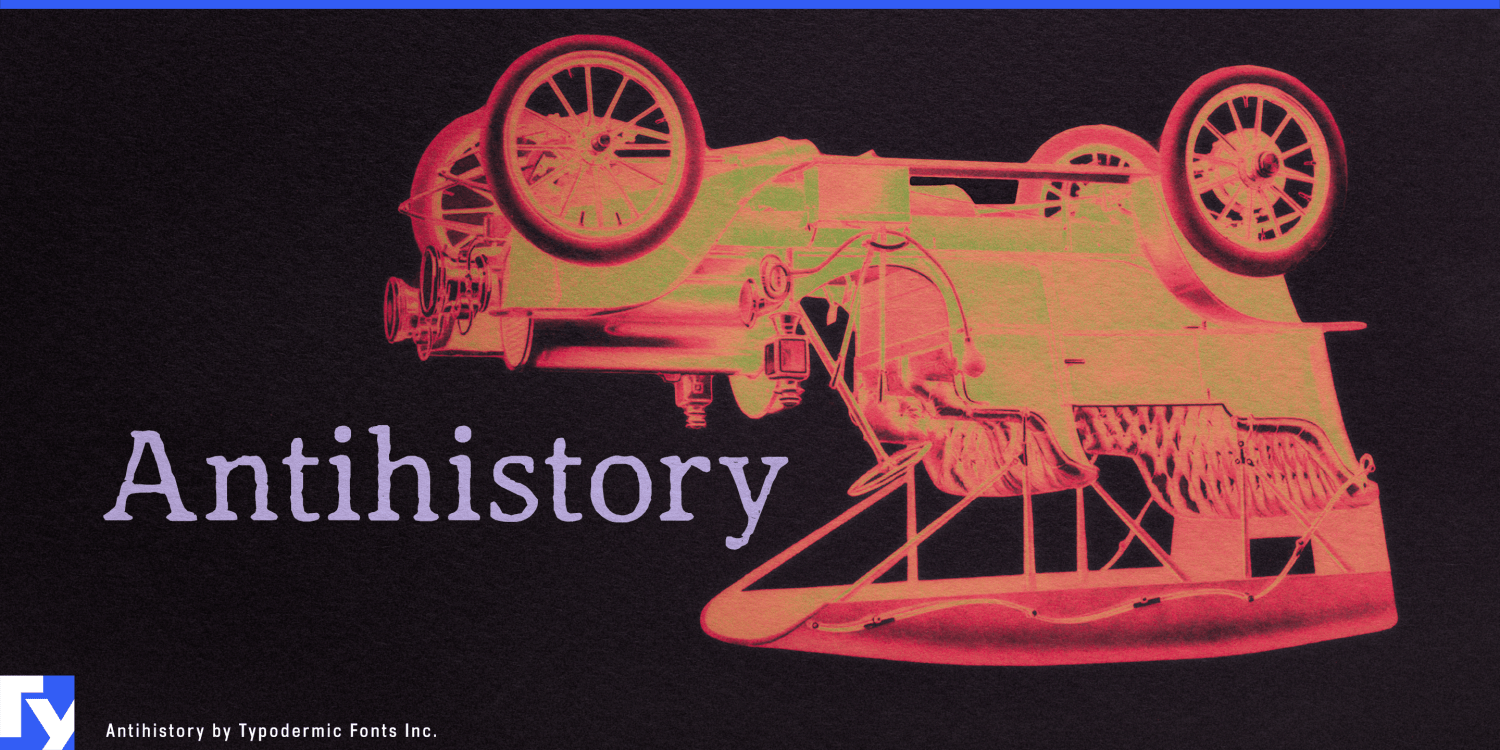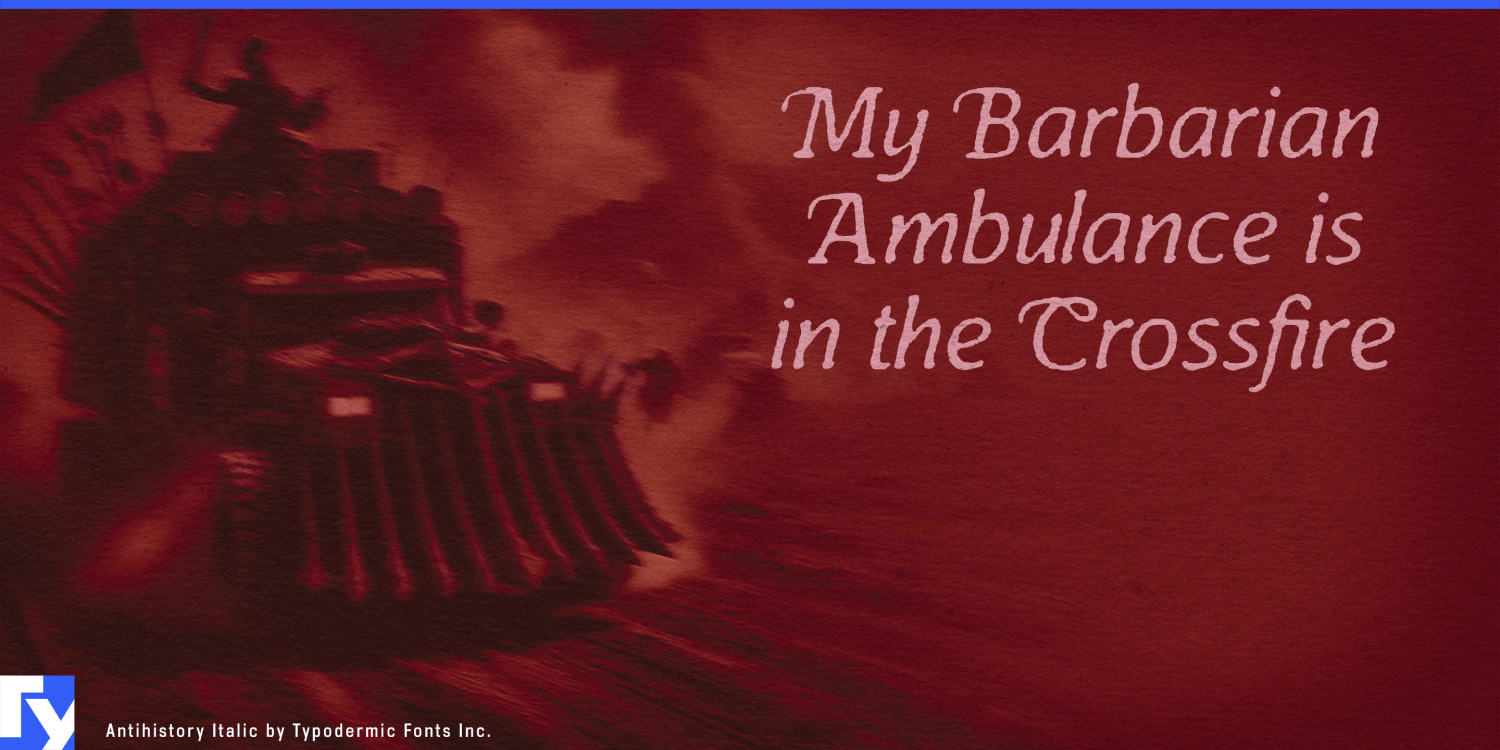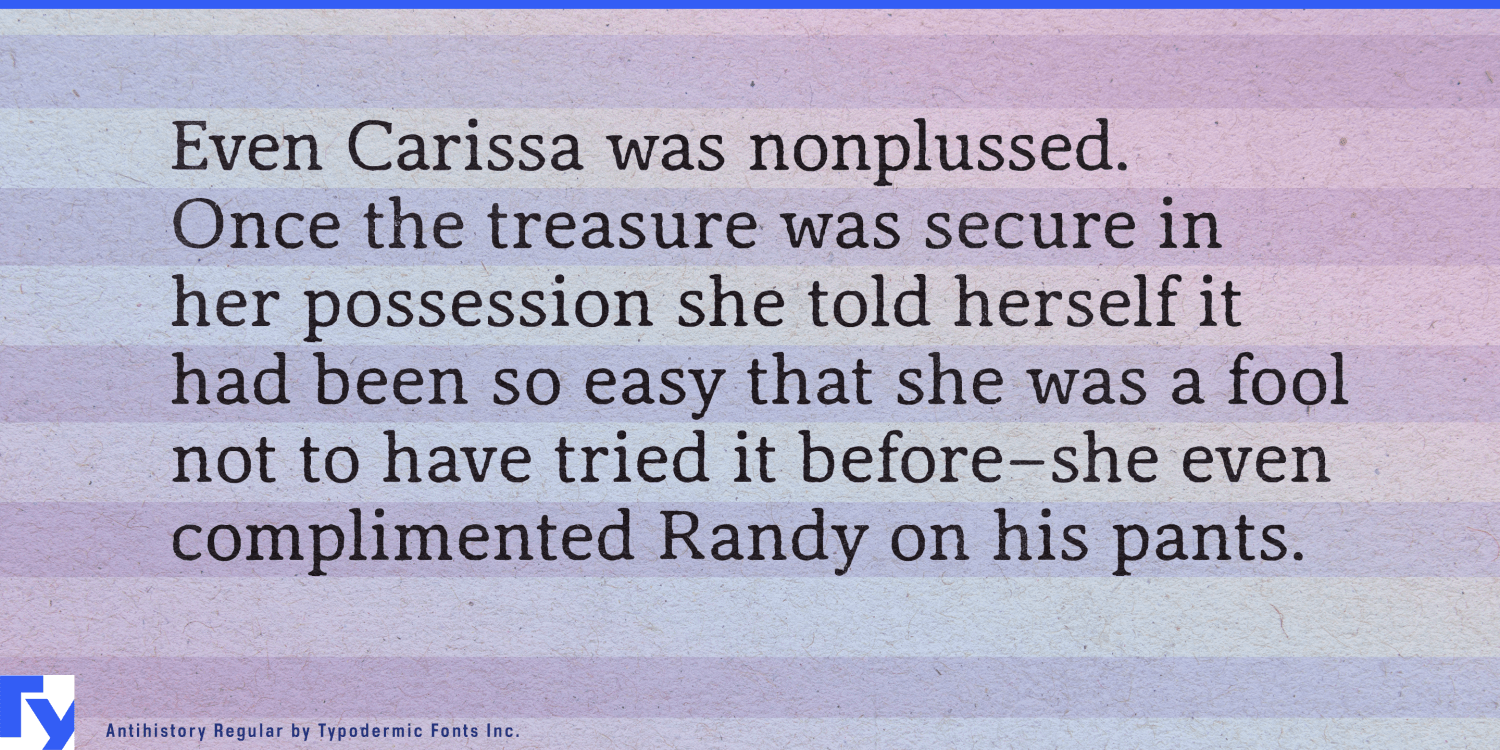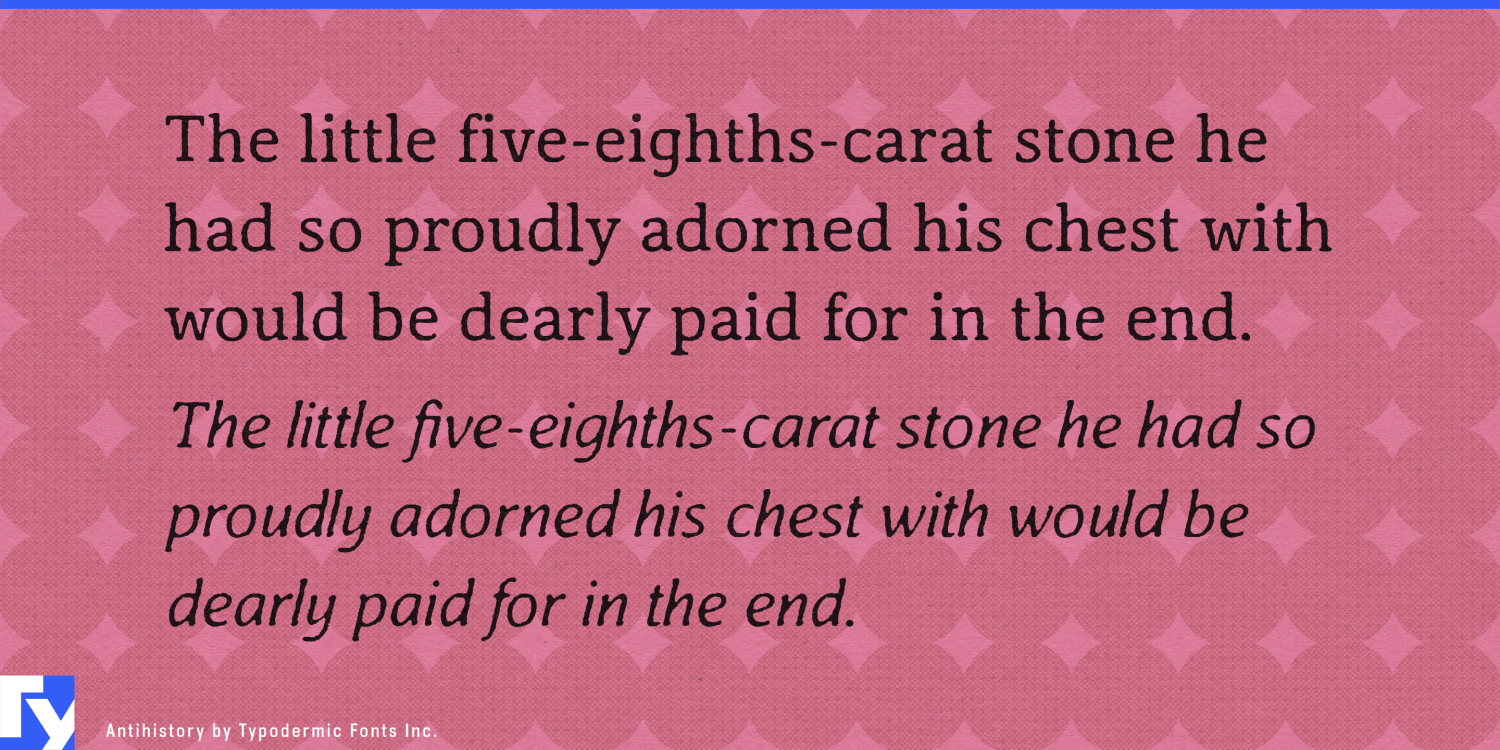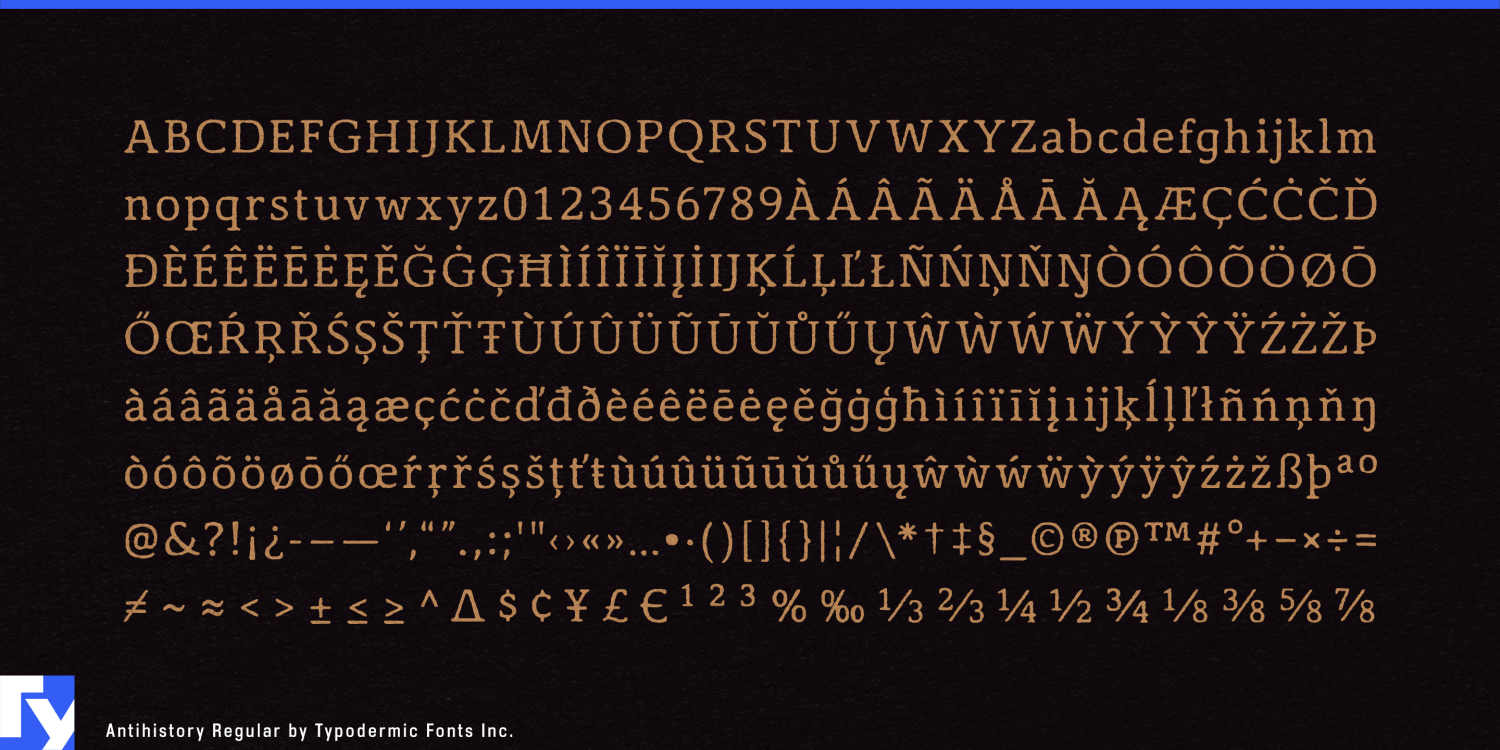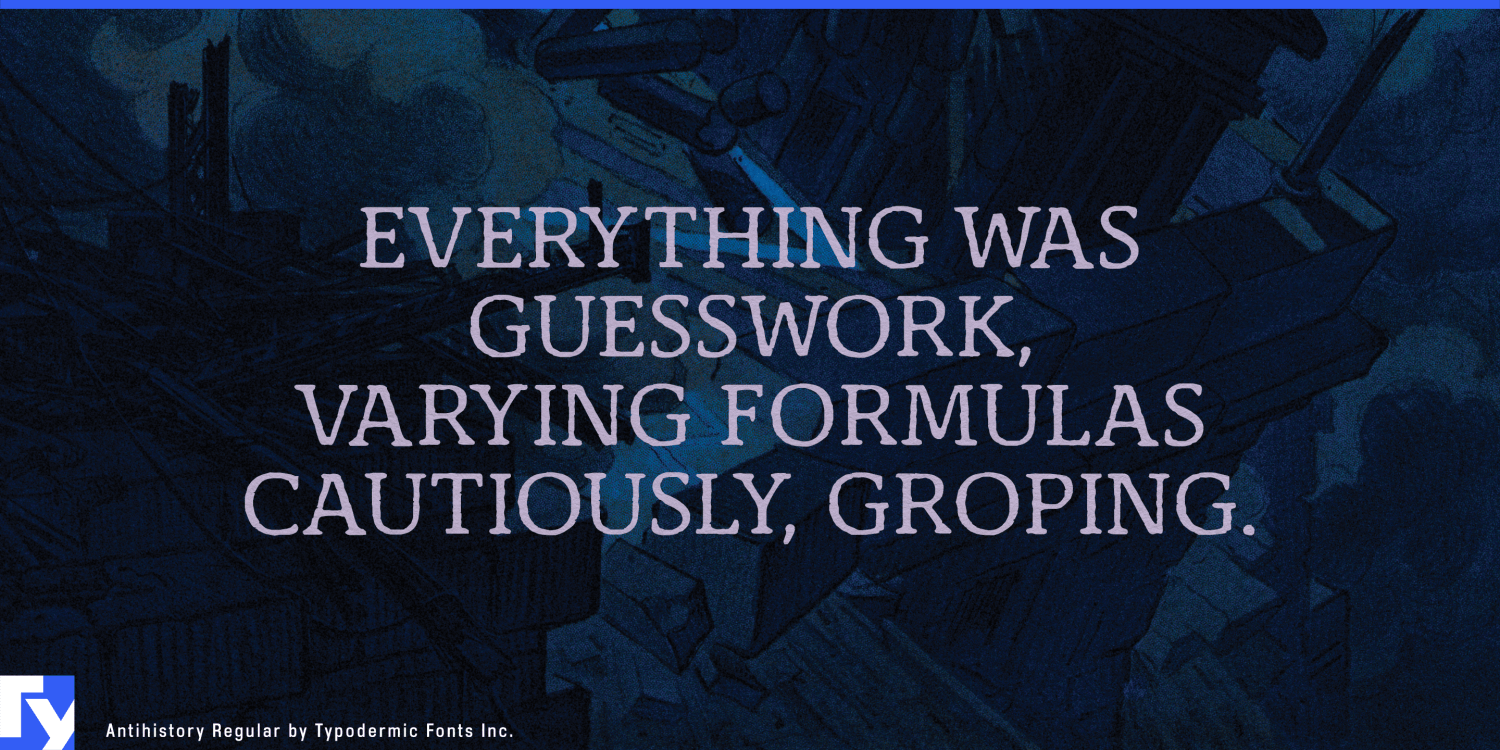
Antihistory
Font Family by Typodermic
Historical typography is straightforward when the history is real. A Victorian broadside, wartime notice or mid-century report comes with conventions a designer can research and reproduce. The problem changes when the document comes from a history that never happened. A period-accurate typeface can accidentally pin the artifact to a real place and decade; a modern serif with added distress can look conspicuously contemporary. Antihistory occupies the uncertain ground between them.
Antihistory began as contemporary serif typography deliberately pushed backward through artificial age. Its worn forms suggest printing, handling and deterioration without settling comfortably into a familiar historical category. Regular and Italic allow the family to handle more than titles; short passages, quotations, captions and document text can share the same invented provenance.
That makes Antihistory especially useful for fictional archives. Alternate-history games, speculative television, mystery productions and immersive narratives often need entire collections of evidence: institutional reports, expedition records, correspondence, research papers, case files and documents from organizations that never existed. Antihistory can give those materials a shared publishing voice without importing the unmistakable associations of a Victorian newspaper, military typewriter or twentieth-century government form.
Investigation games, conspiracy fiction and analog-horror environments can use it for the quieter parts of the archive: forgotten institutional publications, obscure academic papers, cult literature and recovered books. Because Antihistory can sustain readable passages, those artifacts can carry actual clues and narrative information rather than functioning only as background texture.
Speculative design offers another natural role. Foresight projects, design-fiction exhibitions and future scenarios often create reports, manuals, newspapers and institutional documents from events that have not happened yet. Antihistory can give a document created for tomorrow the visual residue of somebody else’s yesterday.
Alternate-history novels, weird fiction, speculative archaeology and faux-documentary publishing can use the same ambiguity for covers and reproduced documents. Antihistory is not historical reconstruction; its niche is invented provenance, giving fictional documents the appearance of having survived a past that never occurred.